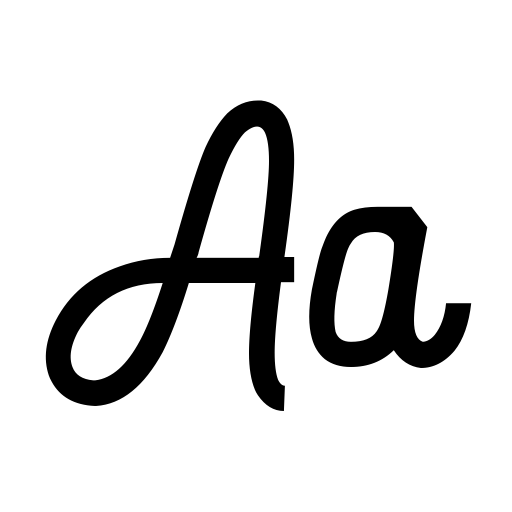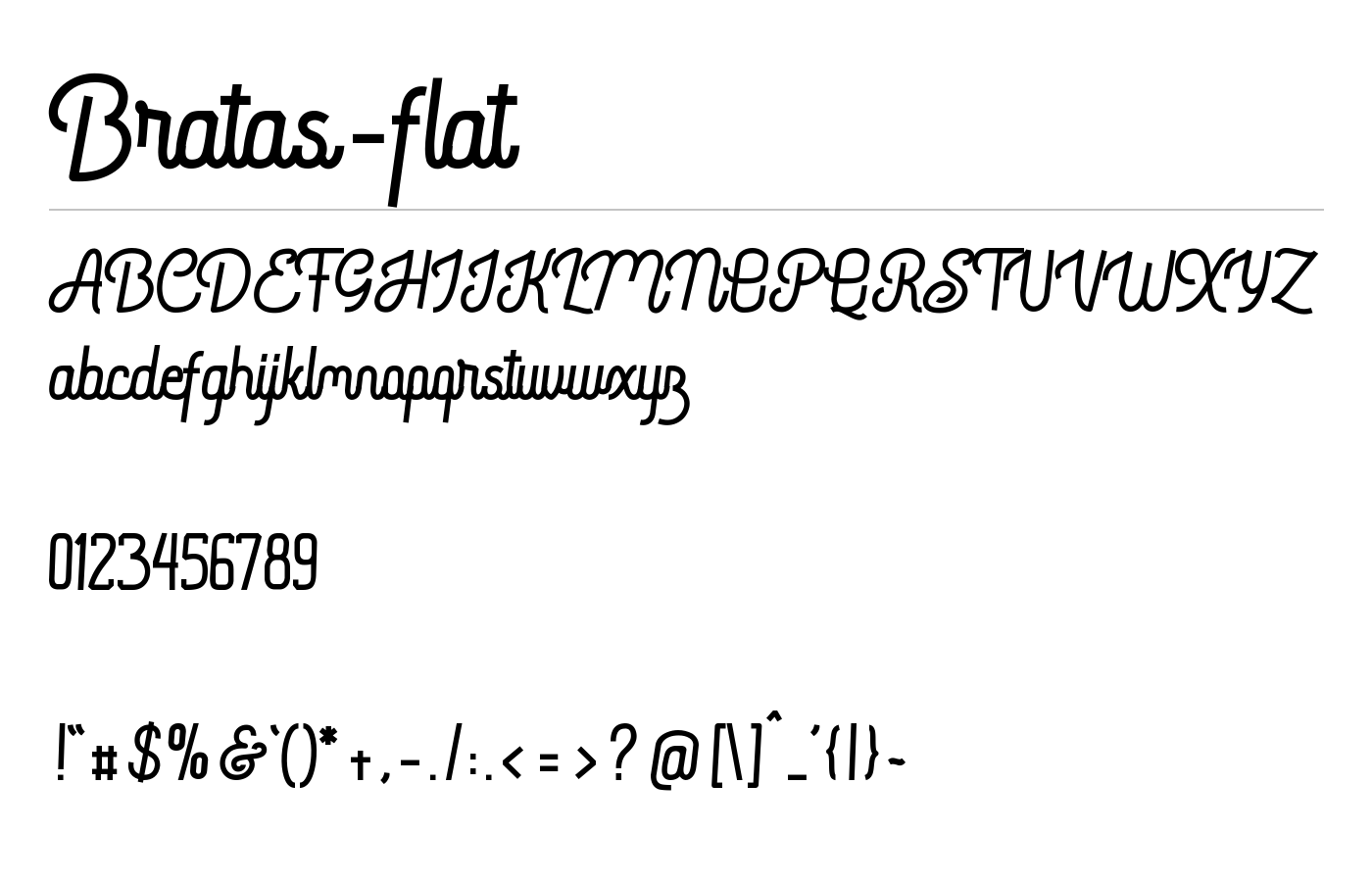
Bratas-flat is a unique script font that combines a smooth, hand-lettered feel with a modern, condensed structure. Its consistent weight and playful curves give it a friendly yet stylish personality, making it ideal for branding, headlines, and packaging that seek a fresh, approachable vibe. This font stands out for its elegant flow and clear readability, perfect for projects wanting a distinctive, contemporary touch.
Bratas-flat Font
About Bratas-flat Font
| Font family | Bratas-flat Font |
| Designer | MUHAMMAD YONI |